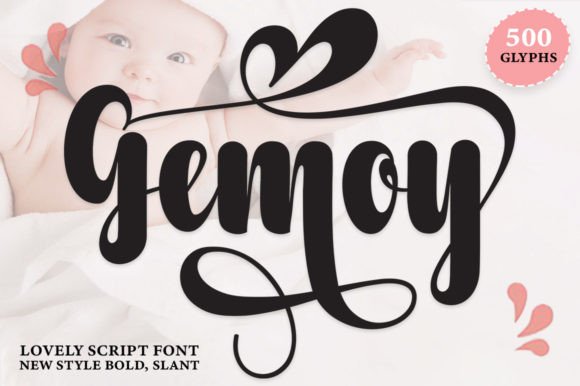
Are you looking for the best font for cursive writing? Look no further than Gemoy Font, created by the experts at WS Studio. Gemoy is a script font family that exudes elegance, sophistication, and timeless style.
Gemoy's latest style font is a smooth and flowing handwritten script that will elevate any project. Its radically different and unique design will captivate your audience and leave a lasting impression. Whether you're creating wall displays, wedding invitations, social media posts, logos, advertising, product packaging, or labels, Gemoy Font will help you create spectacular designs.
With Gemoy Font, you'll enjoy easy access to all the glyphs and swashes, thanks to its PUA coding. You can customize your designs to suit your needs and preferences with ease. Plus, this font is versatile and suitable for a wide range of projects, from photography and watermarks to invitations and stationery.
Gemoy Font is not just any font. It's the perfect font for anyone who wants to add a touch of class and sophistication to their designs. Its elegant, flowing lines are sure to inspire creativity and make your projects stand out from the crowd.